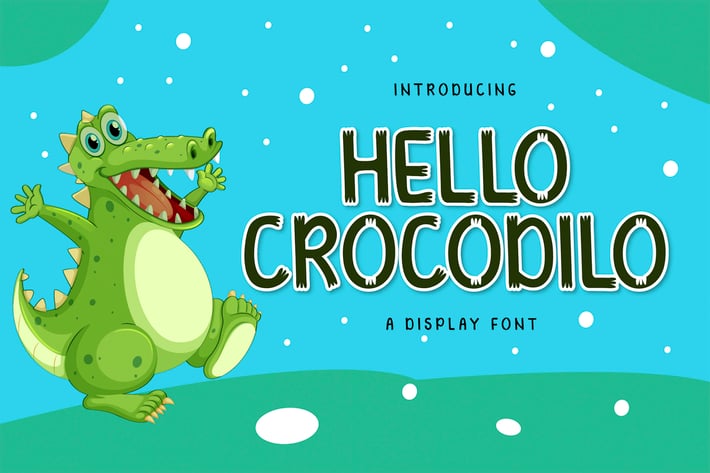
HELLO CROCODILO Display Font
HELLO CROCODILO is a handicraft font. HELLO CROCODILO can be used for products such as handcraft, product packaging, quotes, product design, craftsmen, labels, photography, watermarks, logos & branding. Everything can be accessed using software that supports Opentype, such as Adobe Indesign, Adobe CS Illustrator, Adobe Photoshop CC, and Corel Draw.